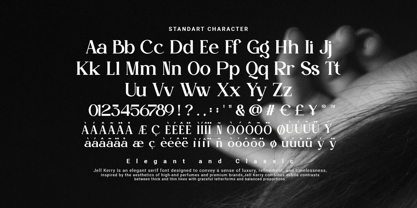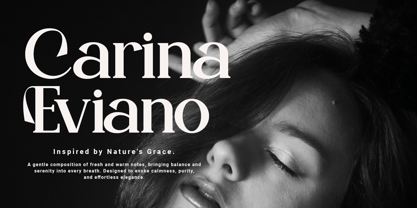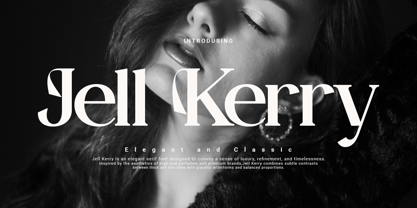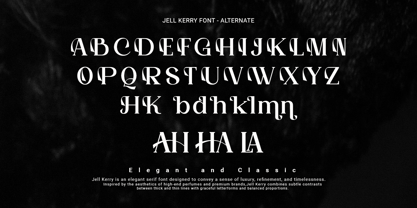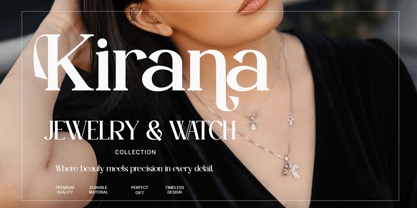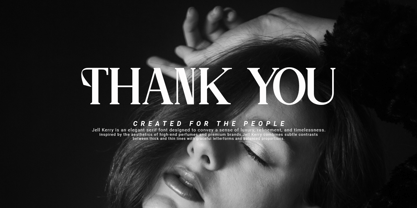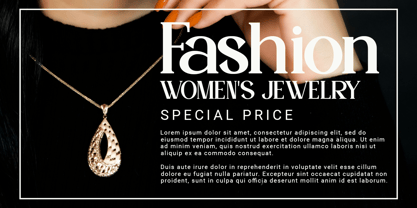
Jell Kerry
La familia tipográfica Jell Kerry fue diseñada por Agung Sudirman y publicada por Agung Sudirman. Jell Kerry contiene 2 estilos y opciones de paquete familiar. Más información sobre esta familia
Jell Kerry is an elegant and sophisticated serif typeface, designed to bring a sense of luxury, elegance, and timeless beauty to any creative project. Characterized by its graceful letterforms, balanced proportions, and distinctive serif details, this font combines classic typographic traditions with a modern aesthetic, making it suitable for branding, fashion magazines, logo design, wedding invitations, editorial layouts, packaging, and high-end marketing materials. Carefully crafted curves and stylish contrasts between thick and thin strokes create a visually appealing look that enhances readability while maintaining a strong artistic identity. Jell Kerry conveys a professional and premium feel, enabling designers to communicate elegance, confidence, and exclusivity through typography. Whether used for large display titles or sophisticated branding applications, this typeface offers versatility, charm, and a luxurious visual experience that helps creative projects stand out with a memorable and distinctive character.